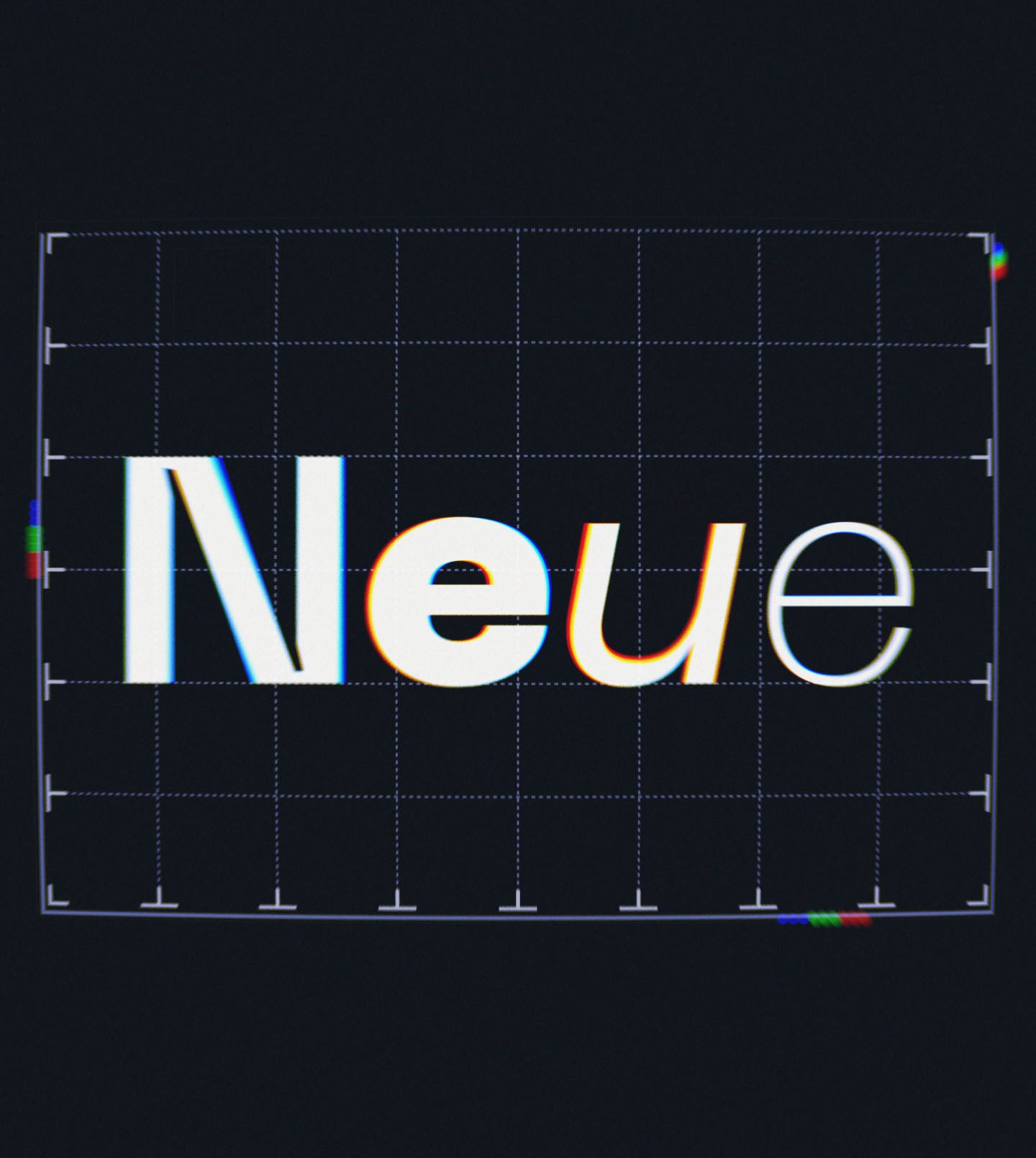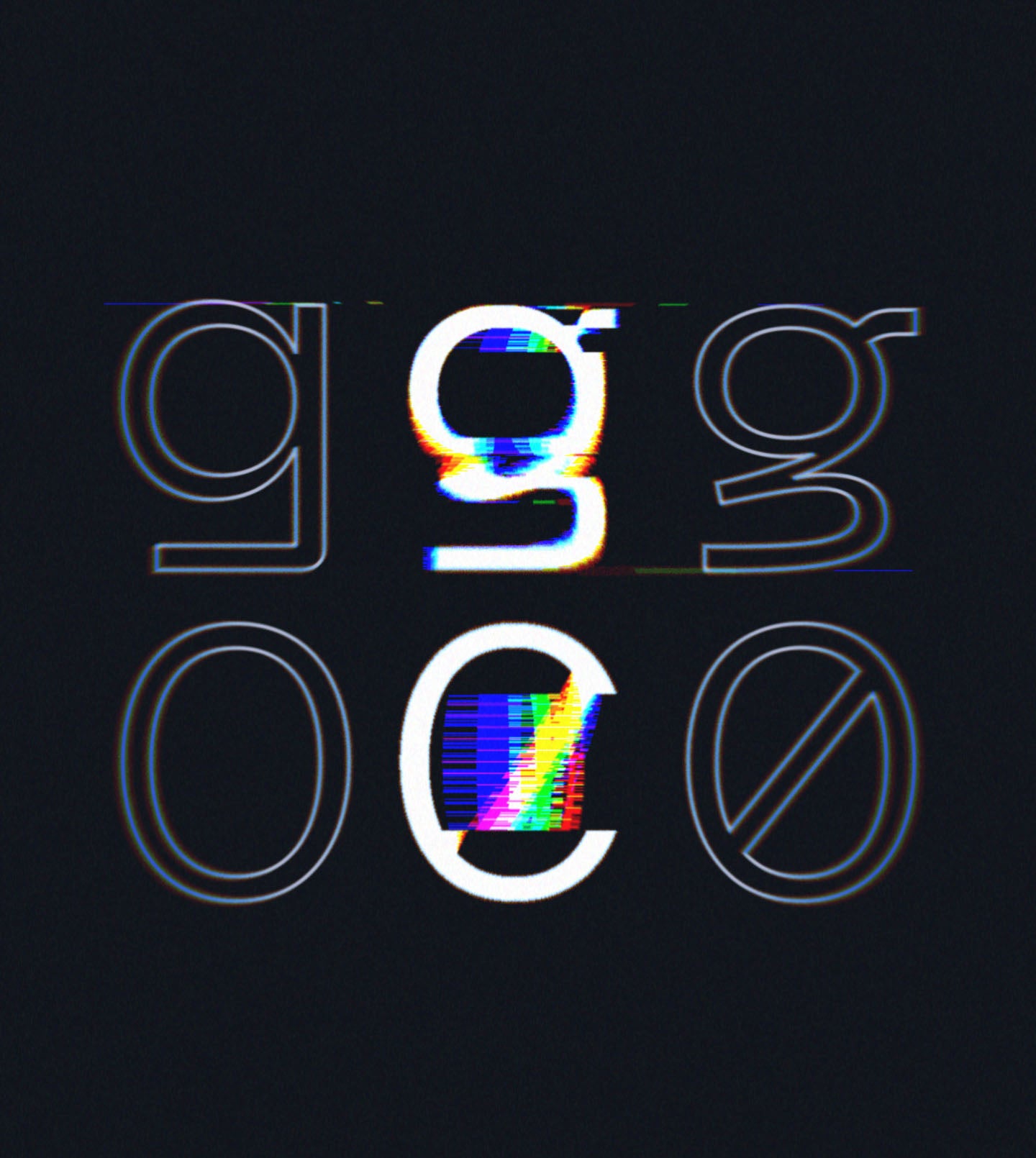
Neue Machina Inktrap
A love letter to the digital age.
Neue Machina Inktrap
What does it mean to be human… when everything around us is built by machines?
Neue Machina Inktrap
Neue Machina. Designed for the post-human condition. It isn’t just a font. It’s a construct—engineered at the intersection of man, machine, and memory. A product of the post-industrial aesthetic, it channels the techno-precision of circuit boards, the structured silence of brutalist architecture, and the layered philosophy of Ghost in the Shell.
Neue Machina Inktrap
This is a typeface that lives in a world where identity is fluid, where bodies are enhanced, replaced, or forgotten, and where consciousness might exist entirely in code. Neue Machina doesn’t pretend to be organic—it embraces the artificial. Its forms are clean, monospaced in feel, with surgical precision and geometric poise. Yet in its rigidity, it carries a kind of emotion. Like a synthetic voice learning how to feel. It’s a love letter to the digital age, but also a critique. Sharp terminals. Repeating patterns. No unnecessary flourishes. It was designed not just to speak, but to transmit—messages from a future we’re already living. Inspired by the cyberpunk philosophy of Ghost in the Shell, Neue Machina carries that same quiet tension: the idea that under all the tech, all the wires, all the sleek surfaces… there’s still a soul trying to break through. Used in branding, UI, editorial, or motion graphics, Neue Machina doesn’t whisper. It announces. It speaks in system prompts and headline grabs. It’s the voice of a world running on code—clean, efficient, and uncomfortably beautiful. And just like the Major—part-human, part-machine—it asks: Is identity defined by how it was made… or what it’s used to say?
Neue Machina Inktrap is variable
Neue Machina Inktrap's Features
Discretionary ligatures
Alternate a
Alternate r
Alternate G
Alternate R
Alternate g
Alternate k
Alternate Y y
Monospaced r
Alternate Curly Brackets
High Contrast y
Alternate &
Plain Zero
Standard ligatures
Case sensitive forms
A love letter to the digital age.
Neue Machina is a powerful and meticulously crafted typeface boasting monospace/geometric type features as well as apparent and deep ink traps in its heavier weights ● It is inspired by the aesthetics of robotics and machines ▲ a font suited for the future of technology ■ It was designed to be versatile, to blend in your designs in its lighter weights or to give them a lot of personality in its heavier ones.
It comes in a Inktrap cut as well as a Plain cut for your more subtle designs. Each cut comes with their corresponding italics and everything is variable for maximum versatility!
Including Italics & Cyrillic Support